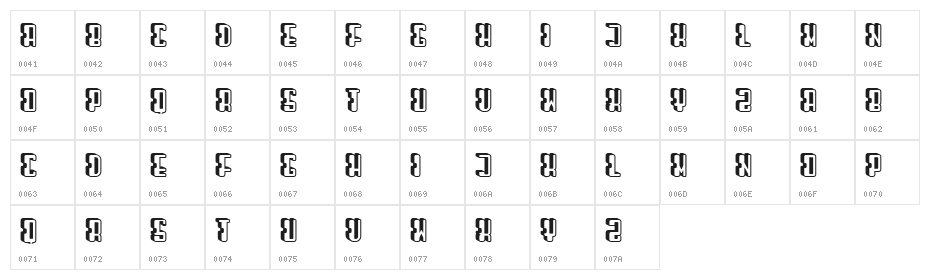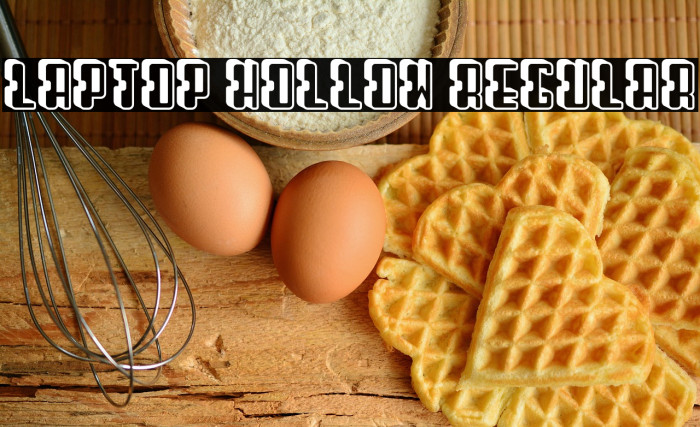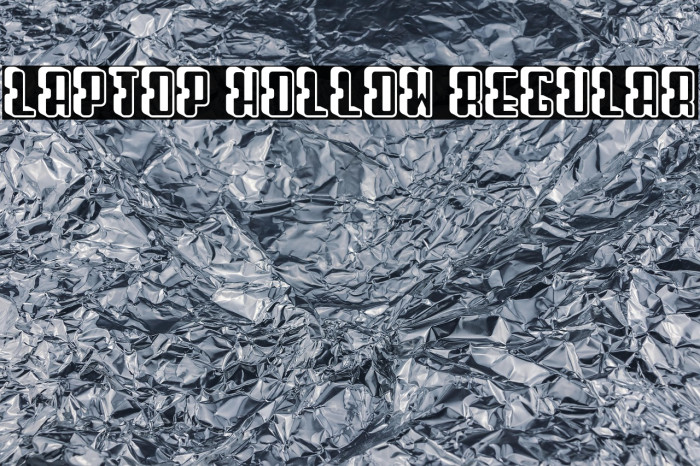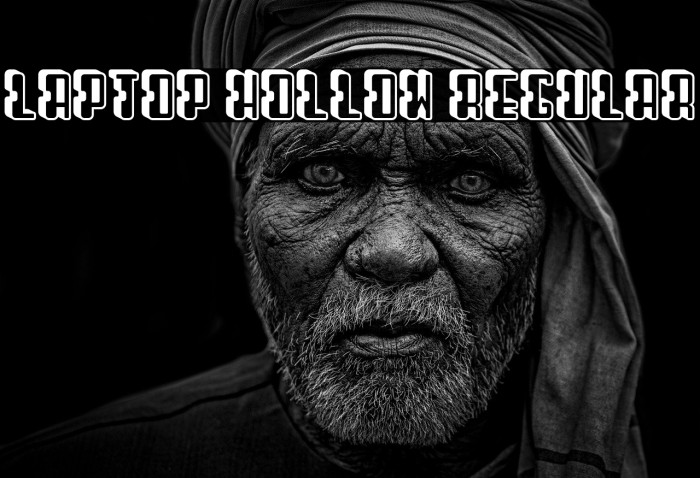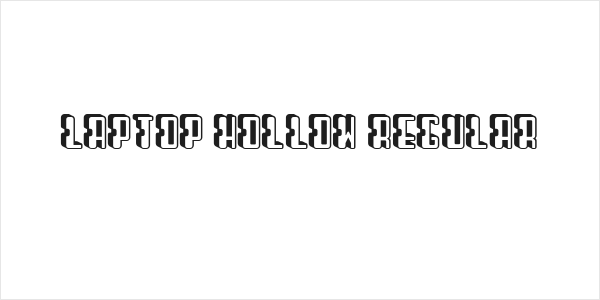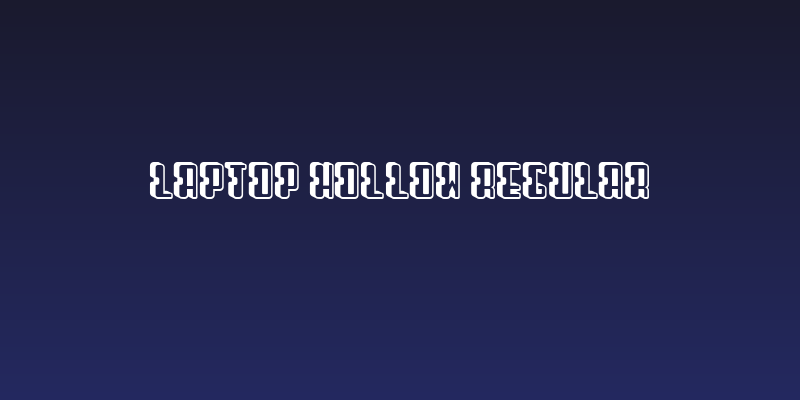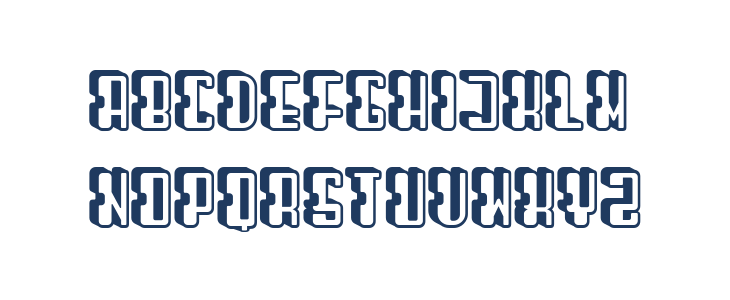
Laptop Hollow Regular Font
Laptop Hollow Regular Description
This font features a bold, hollow design with a distinct geometric structure. Each character is outlined with thick strokes, creating a striking visual effect that emphasizes its modern and futuristic appeal. The uppercase letters are particularly prominent, with a consistent height and width that contribute to a uniform appearance. The lowercase letters maintain the same hollow style, ensuring readability while preserving the font's unique aesthetic. Numbers and special characters are designed to match the overall theme, making this font versatile for various applications. Its boldness and hollow design make it ideal for eye-catching headlines and creative projects.
| Proposed Projects | Ideal for futuristic branding, tech-related designs, posters, and digital media. |